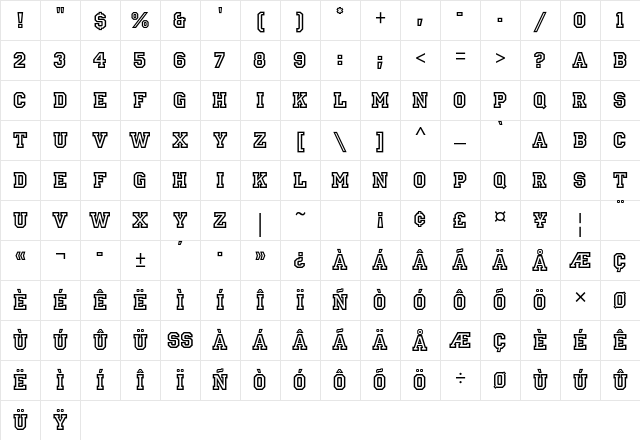
Princetown Std Regular
Designer: Dick Jones
Design Context for Princetown Std
Princetown Std is a composed and adaptable typeface that performs quietly and consistently across a wide range of design contexts.